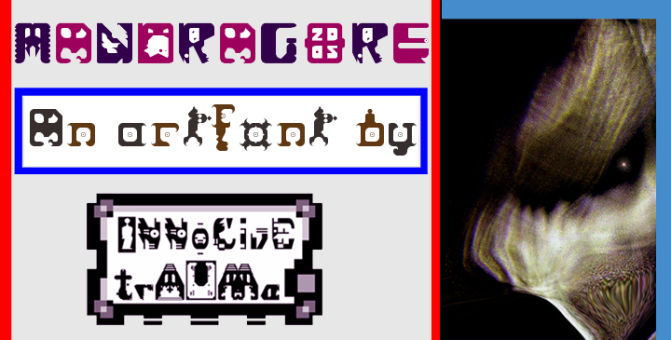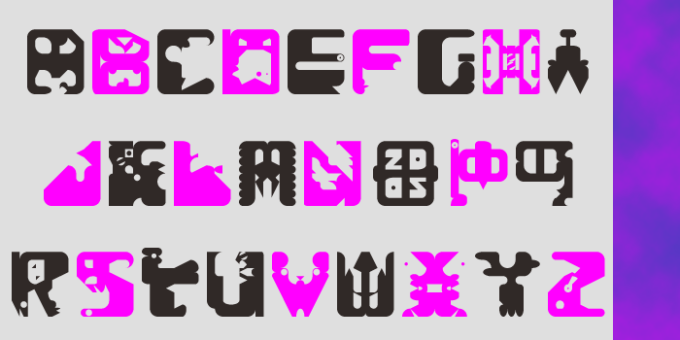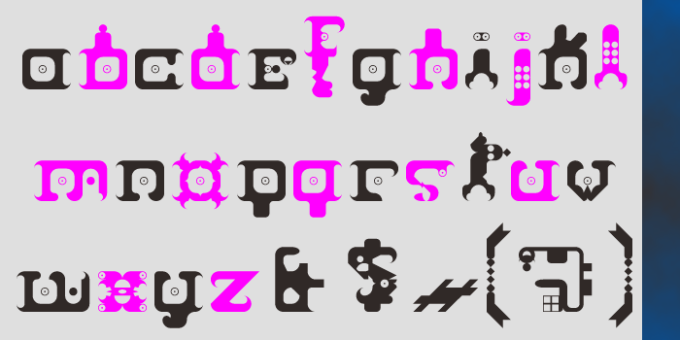
trAUMa 4 / Mandragore
Mandragore, as the whole "trAUMa" series, works between Art & Type Design, Figuration & Abstraction, each font being a comprehensive world in which every glyph is a "living" entity. But put together they can produce your messages in the most accurate way.
Years of development & research were needed for these pieces representing the typographic part of artist Innocive TrAUMa work.